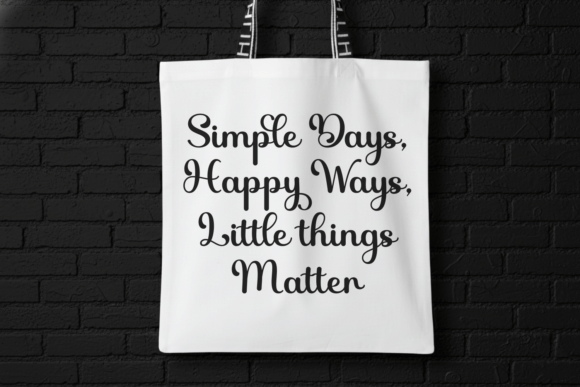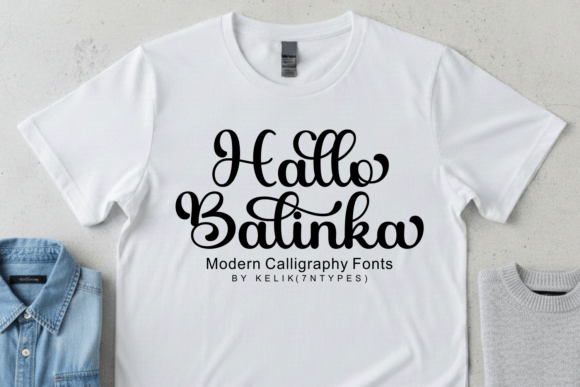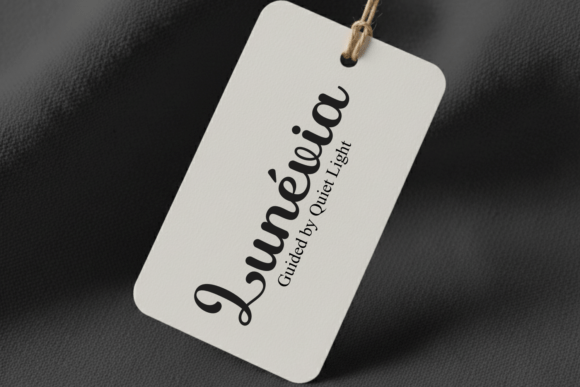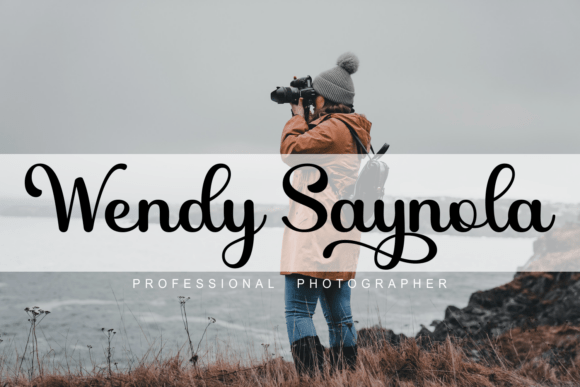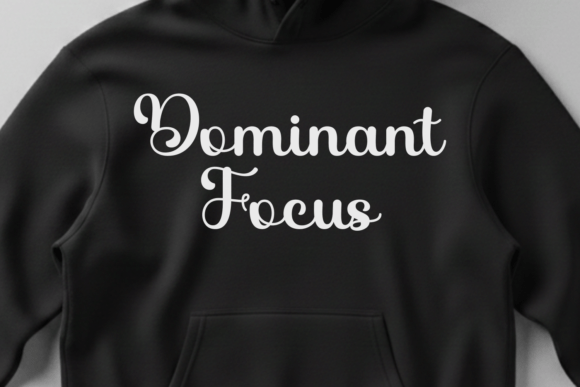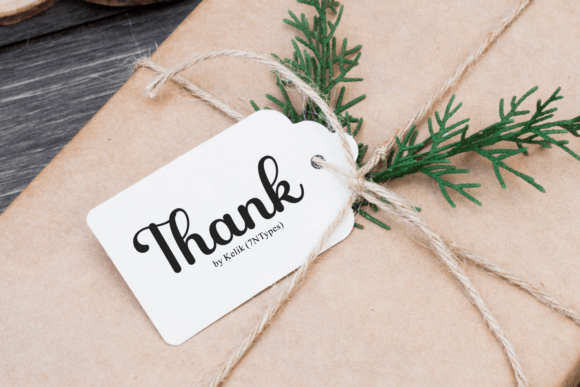
Introduction to Hallo Balinka Font
Hallo Balinka font is an exquisite expression of fluid artistry, bringing a hand-swept, rhythmic elegance to the world of digital typography.
This Hallo Balinka typeface features thick, lush downstrokes contrasted with delicate, looping hairlines that create a sense of romantic movement It is the ultimate Hallo Balinka font for luxury wedding invitations, sophisticated branding, and high-end editorial layouts where a personal, artisanal touch is required.